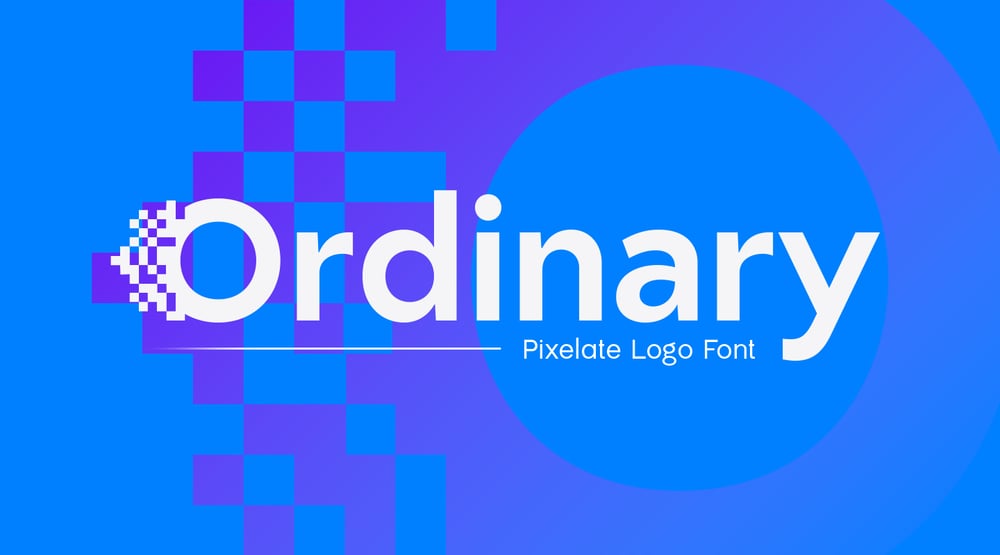
Ordinary SS
Ordinary SS font
Ordinary SS Font Family was designed by Zamroni Hamzah and published by Sensatype Studio. Ordinary SS contains 2 styles and family package options. Ordinary – Pixelate Logo Motion FontOdinary is a pixelated logo motion font that brings a blend of retro digital aesthetics and modern design elements to life. With its pixel-inspired structure, this font is ideal for technology-based projects, logos, and creative branding. Its pixelated form evokes a sense of nostalgia while offering a unique contemporary twist.Designed for those who seek to stand out, Odinary offers a fresh approach to logo design and motion graphics. Its distinctive pixelate style makes it perfect for gaming logos, tech startups, and digital content creators. The font moves seamlessly between retro and futuristic, making it a versatile choice for various creative applications.Odinary comes with multilingual support and offers unique ligatures and alternate characters, giving designers more creative freedom. This font is the perfect balance between the old-school pixel look and the sleek demands of modern branding.Odinary Pixelate Logo Motion Font Features: Pixelate Characters Ready Unique Characters and Perfect for Logo Punctuation, Number, and Symbol Include 4 formats already Uppercase and Lowercase Multilingual Support Opentype Features Thank you and best of luck with your designs!